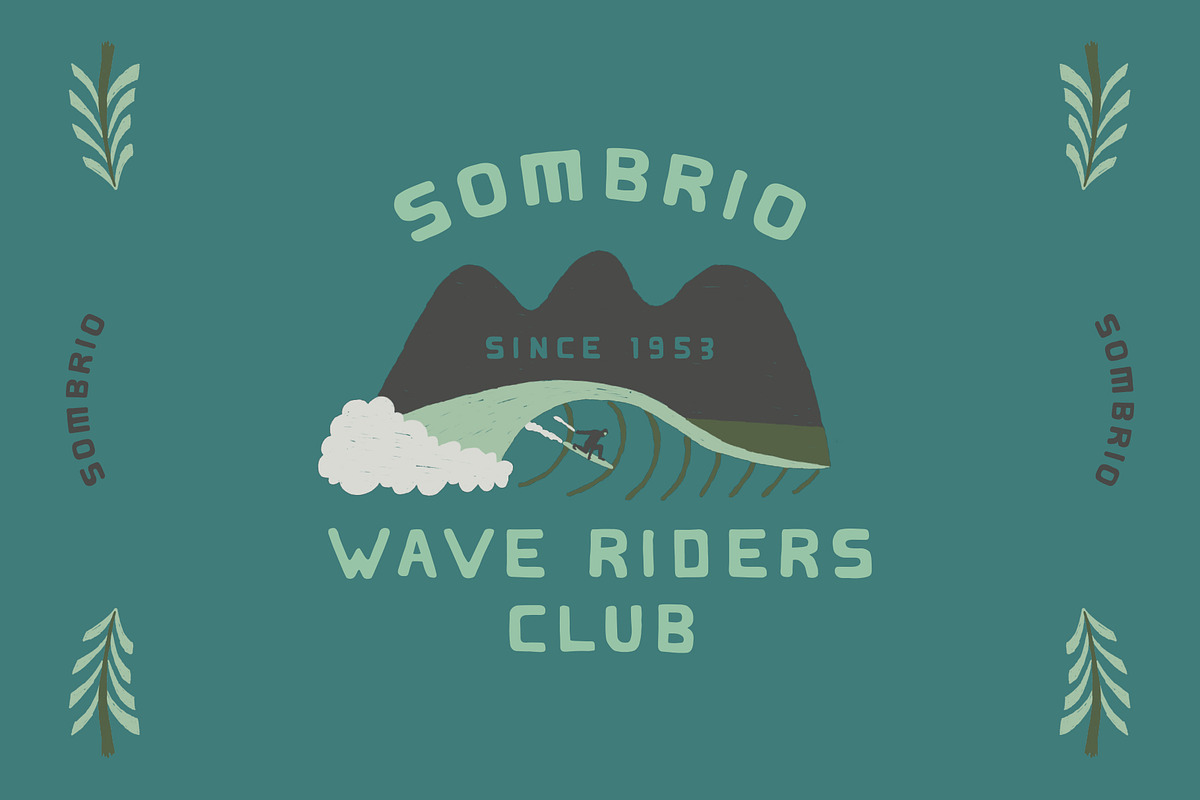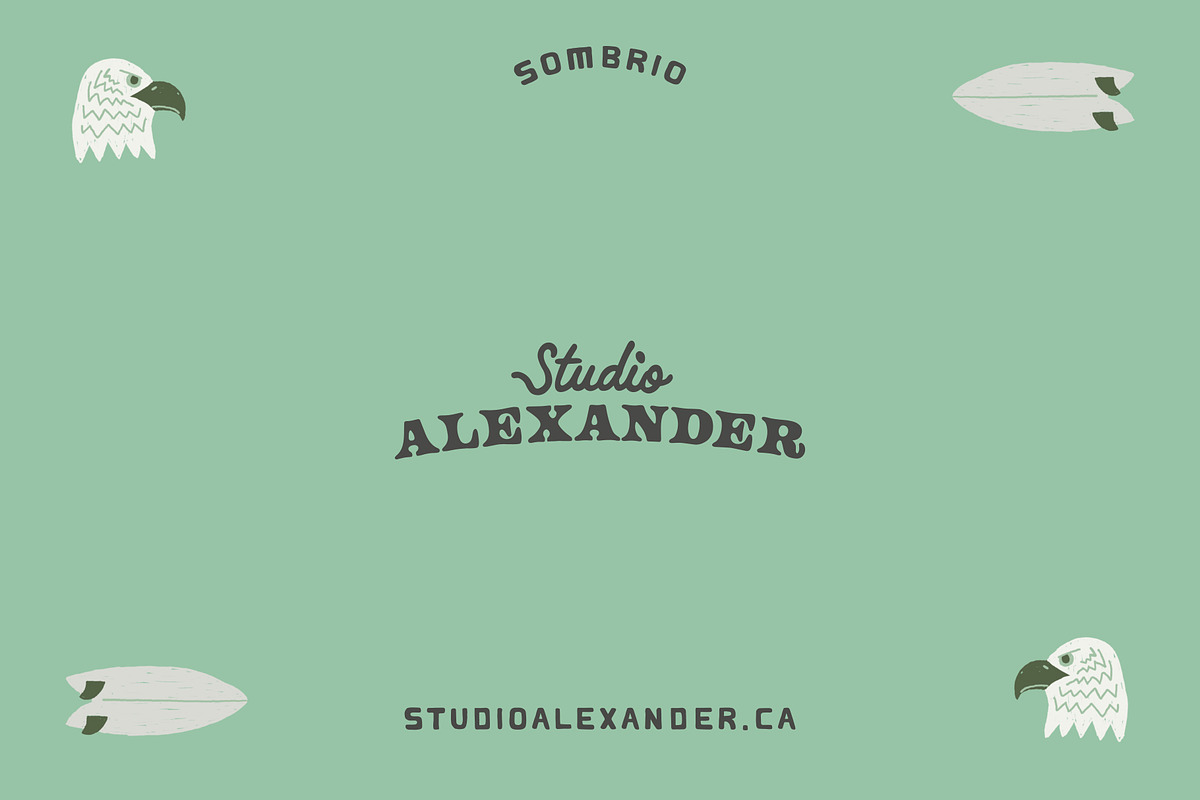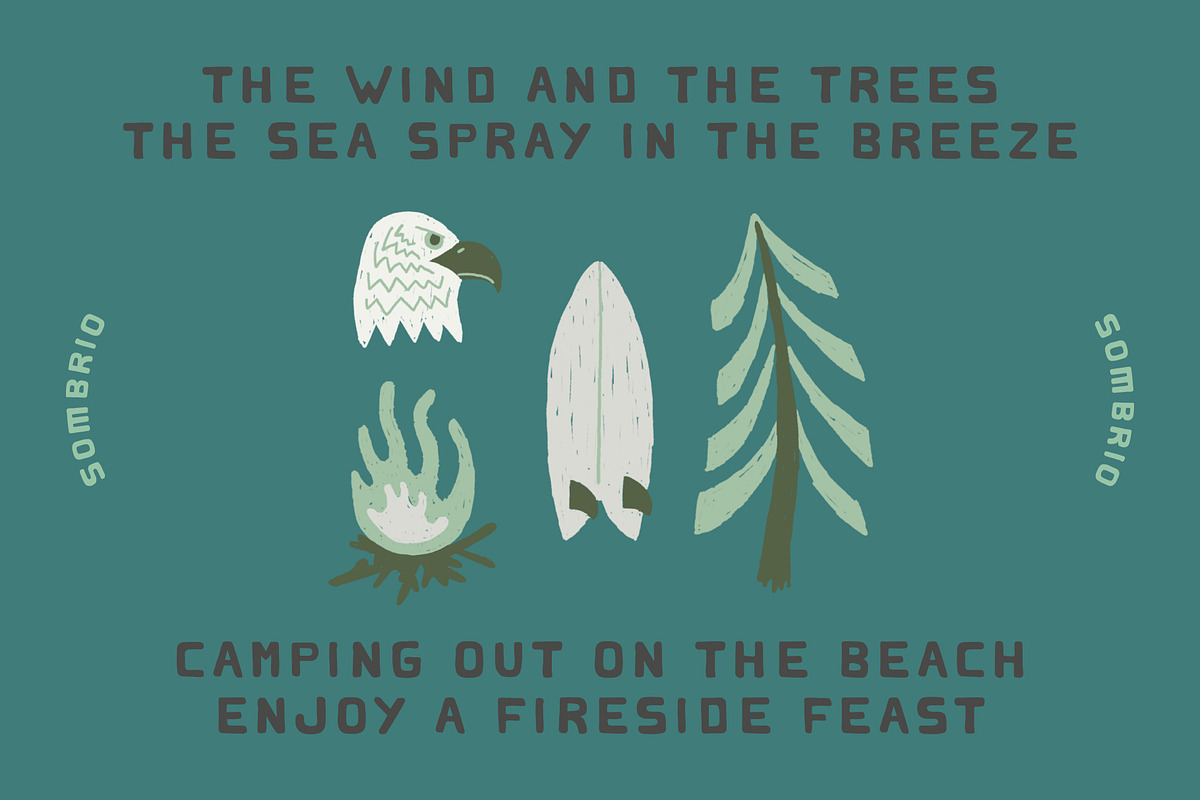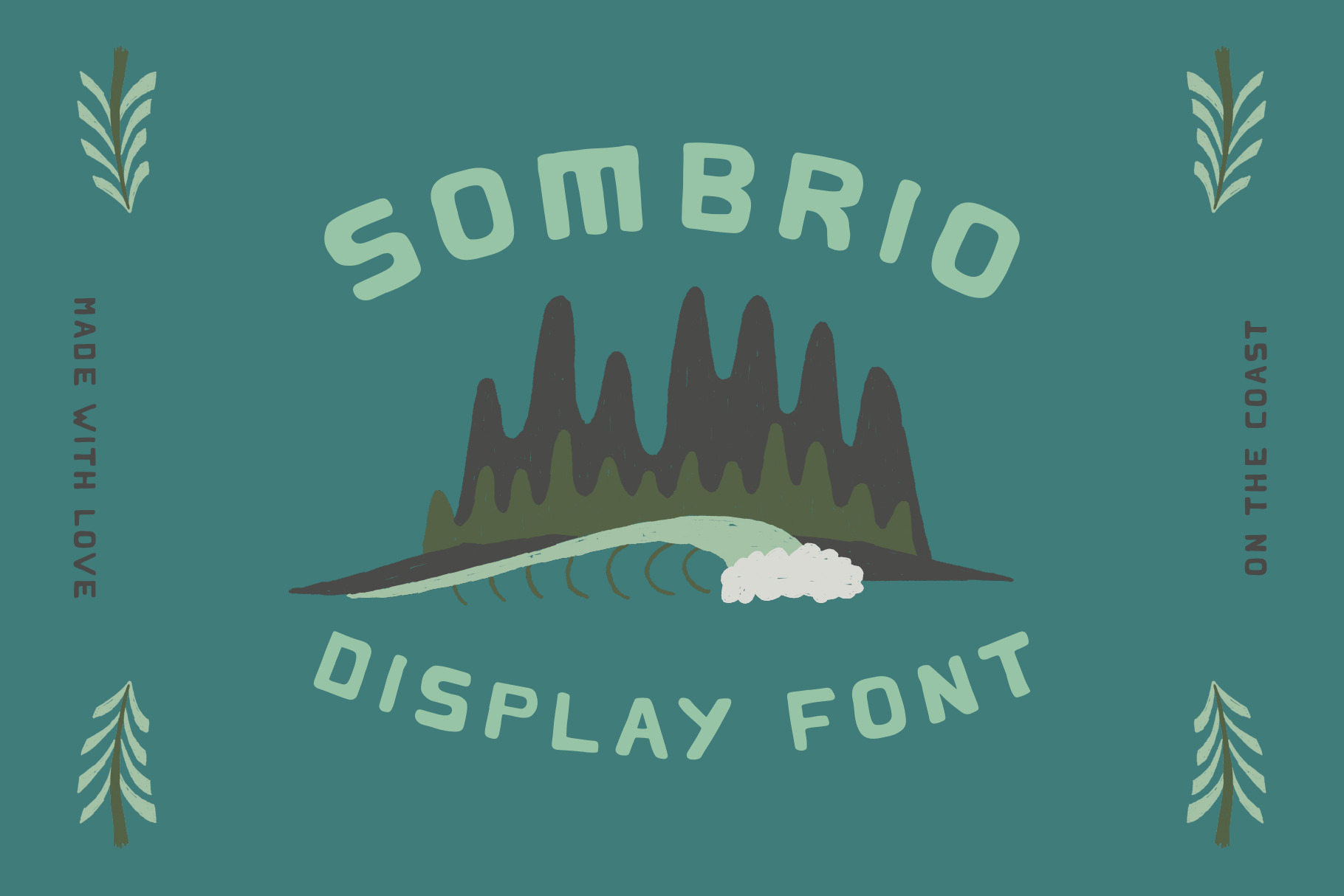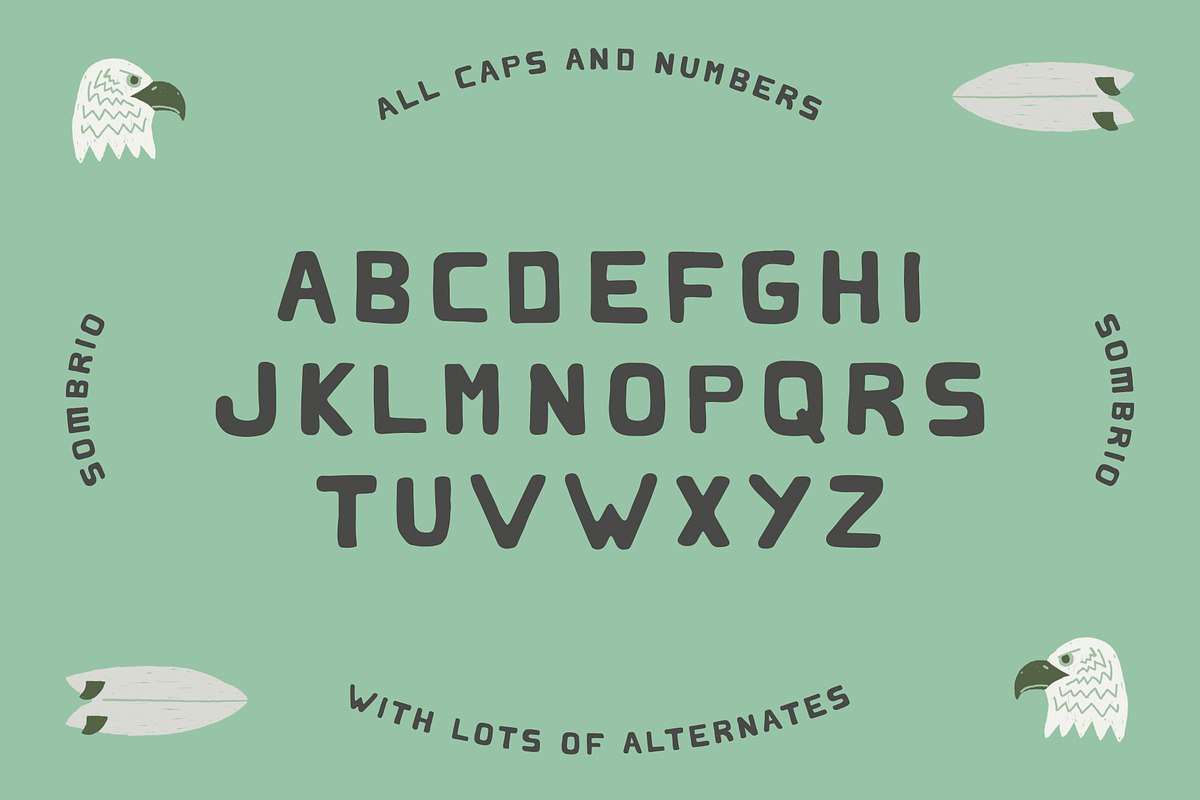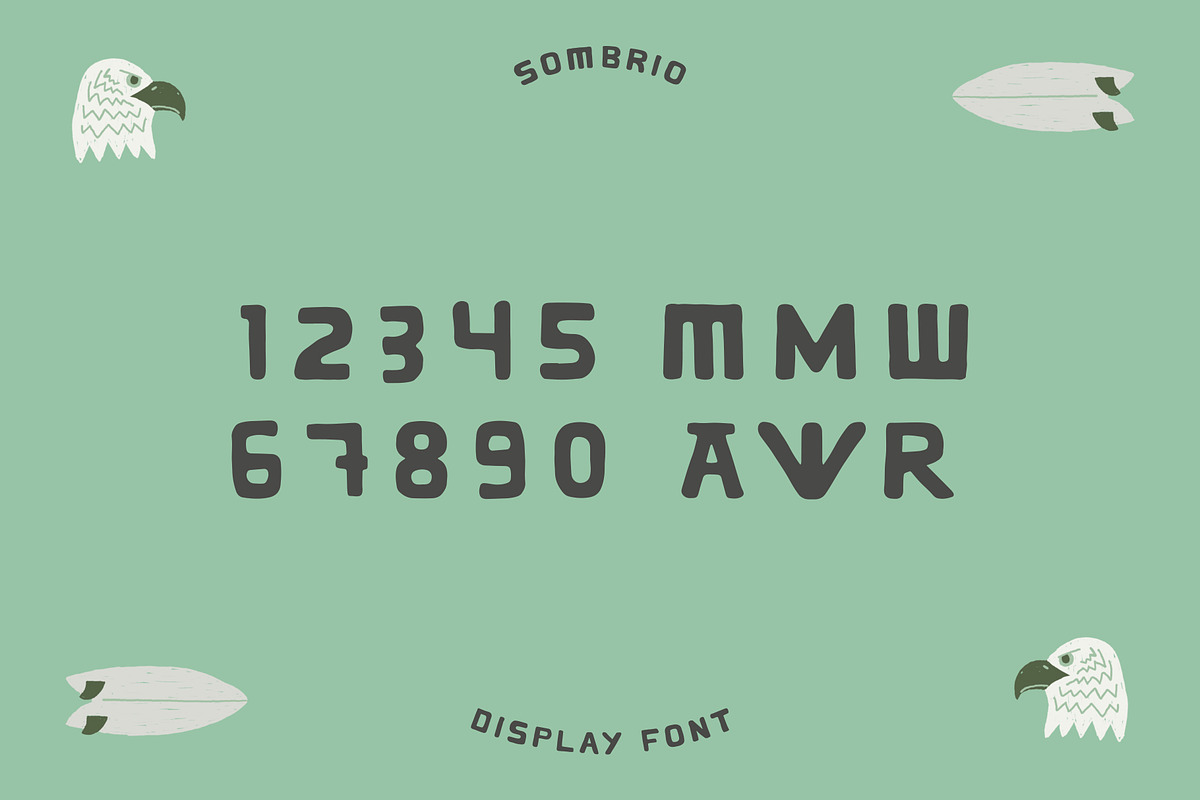
Sombrio Font
Sombrio is a display font that has drawn inspiration from Sombrio Beach (South Vancouver Island) where you can find campers and surfers from all over enjoying the beautiful coastline. A lot of hand carved typography sits along this coast–all of it imperfect in its own special way which, has lead us to create our own based off our favourite found characters. This font is great for logos and posters as well as anything that needs a little bit of personality.